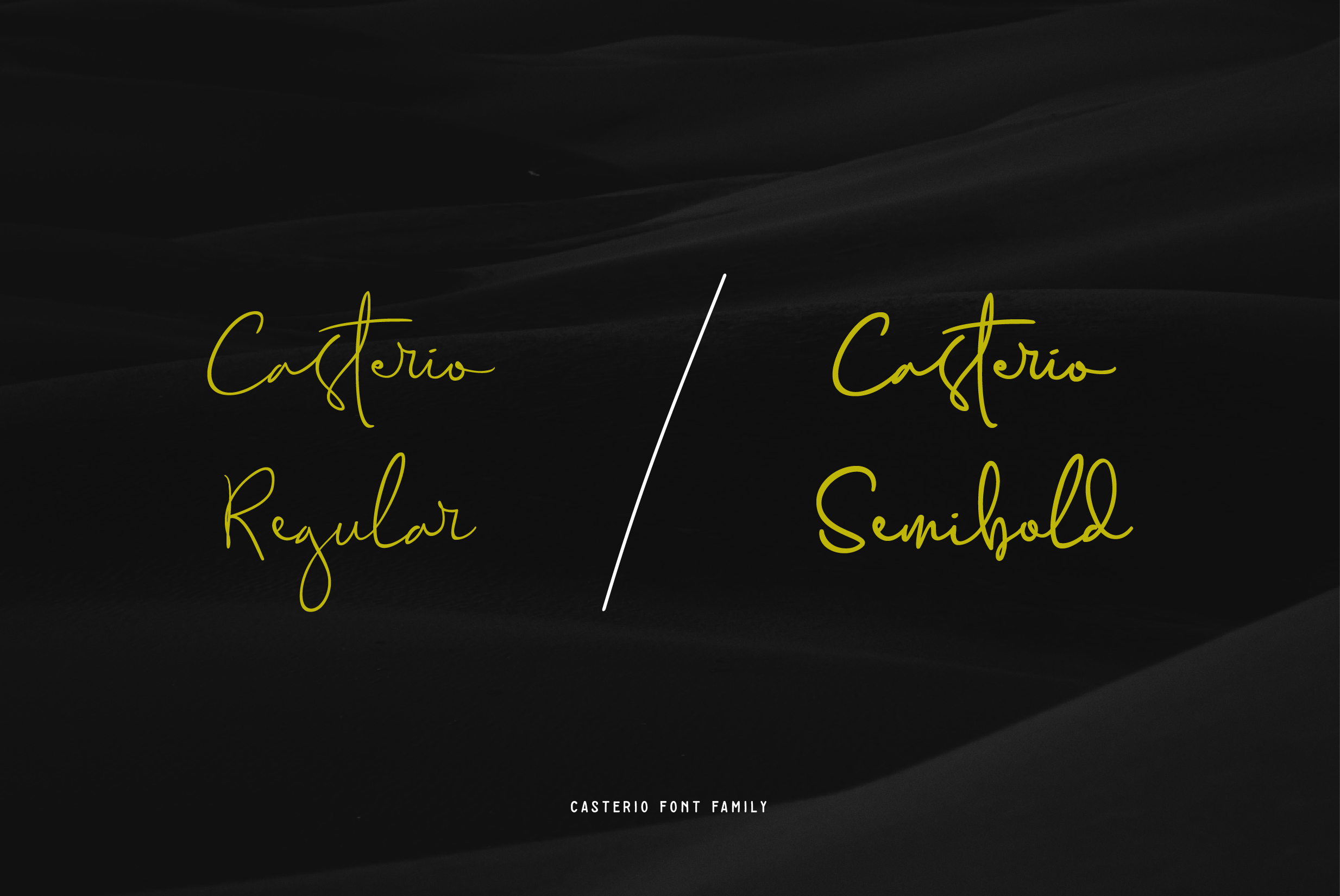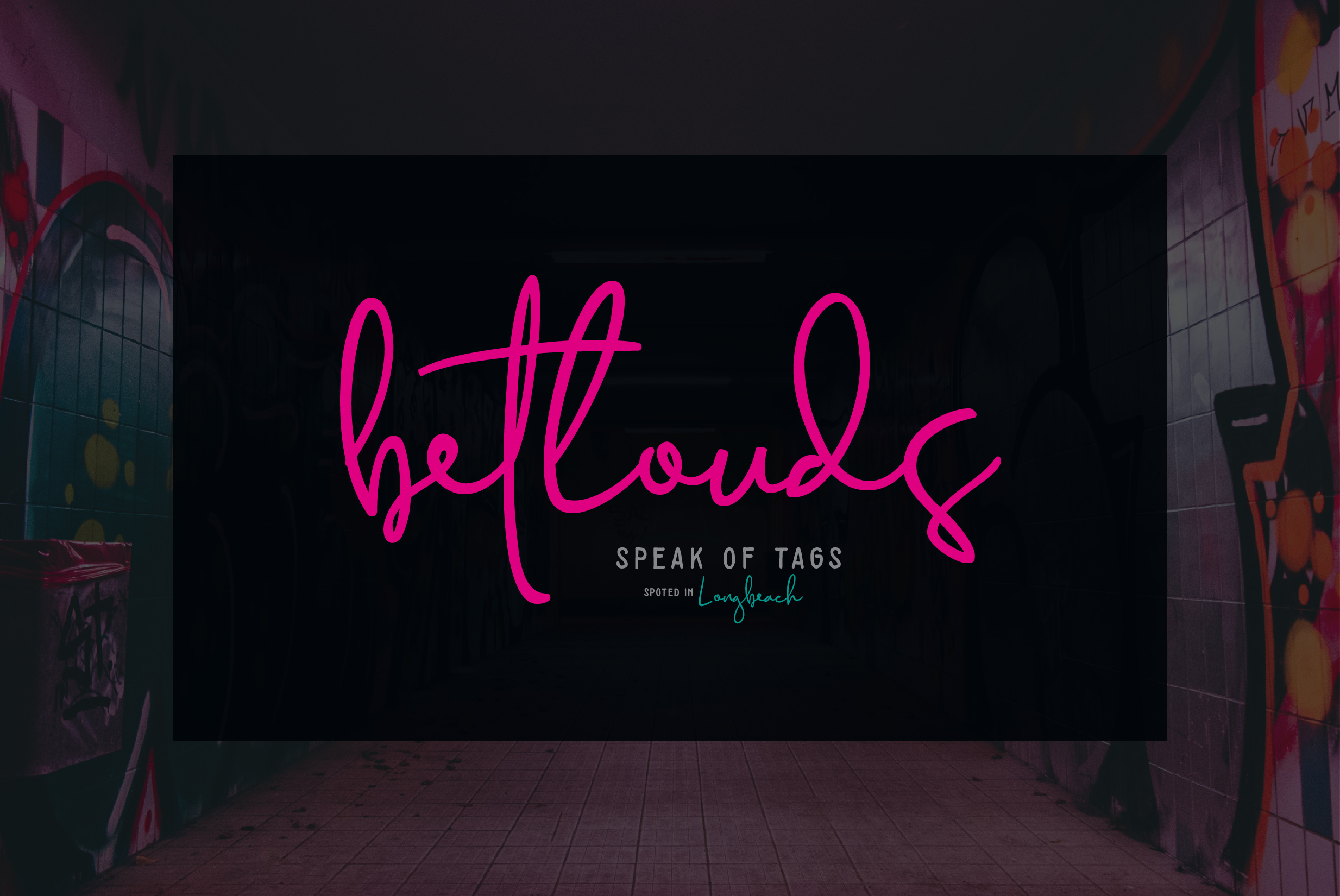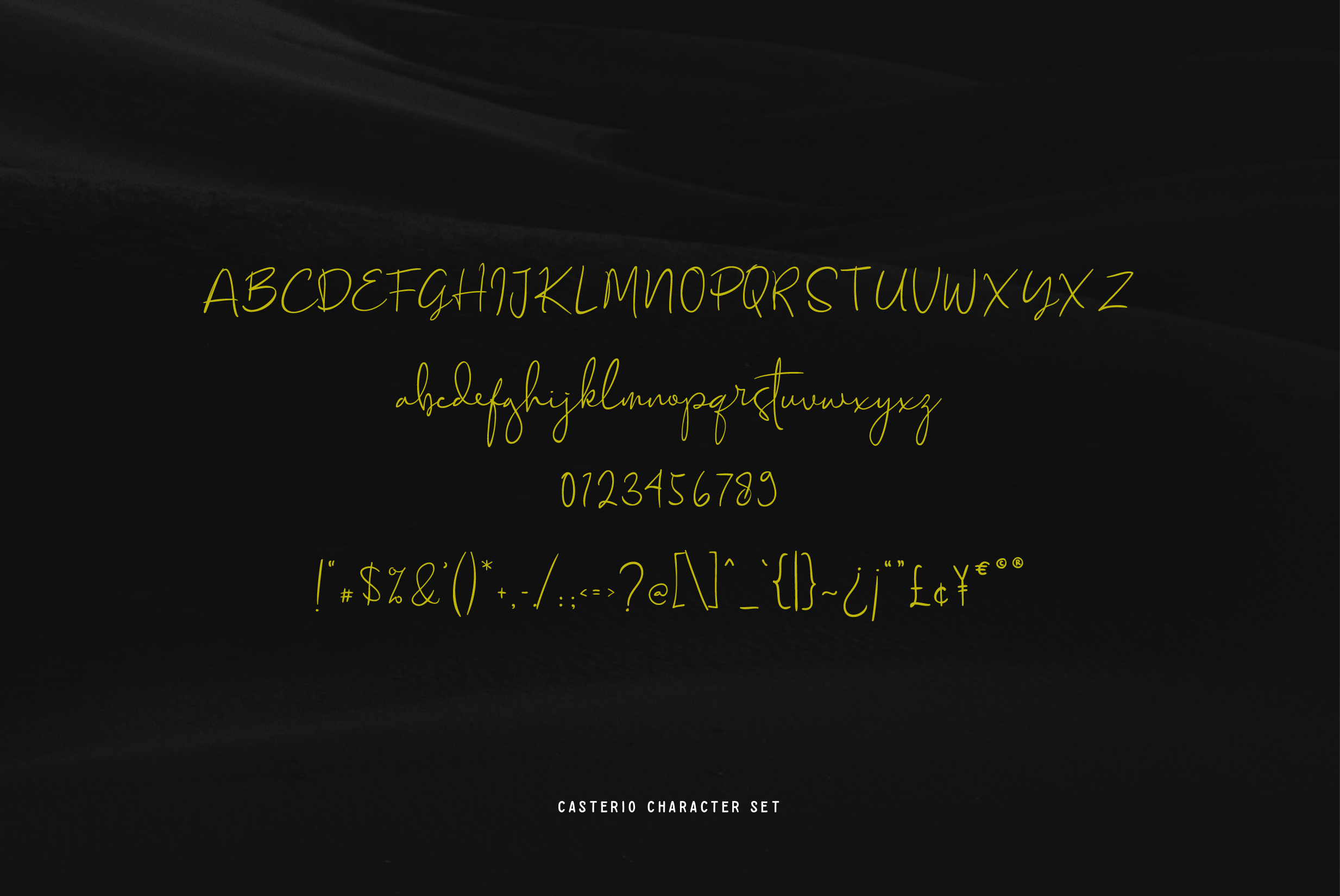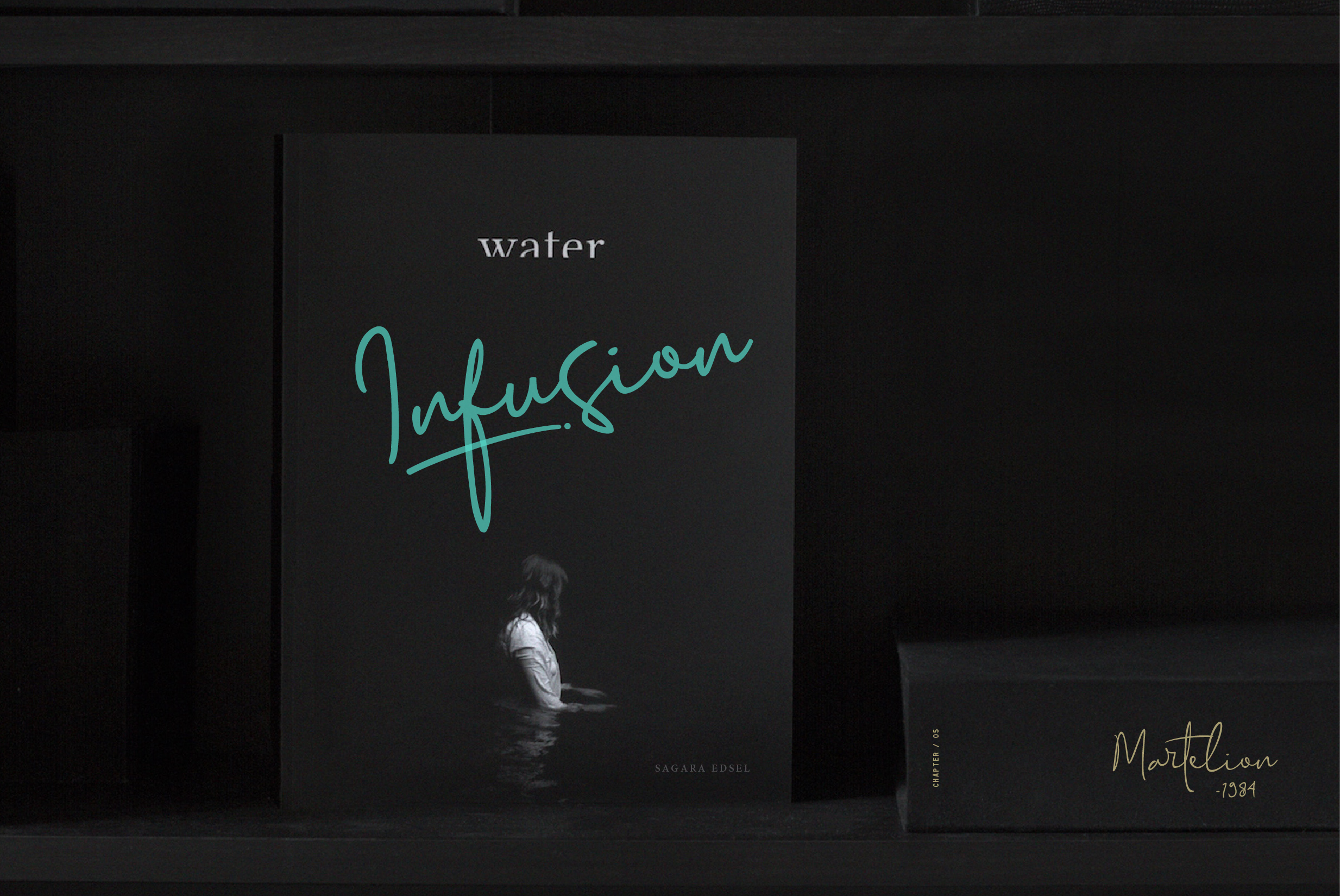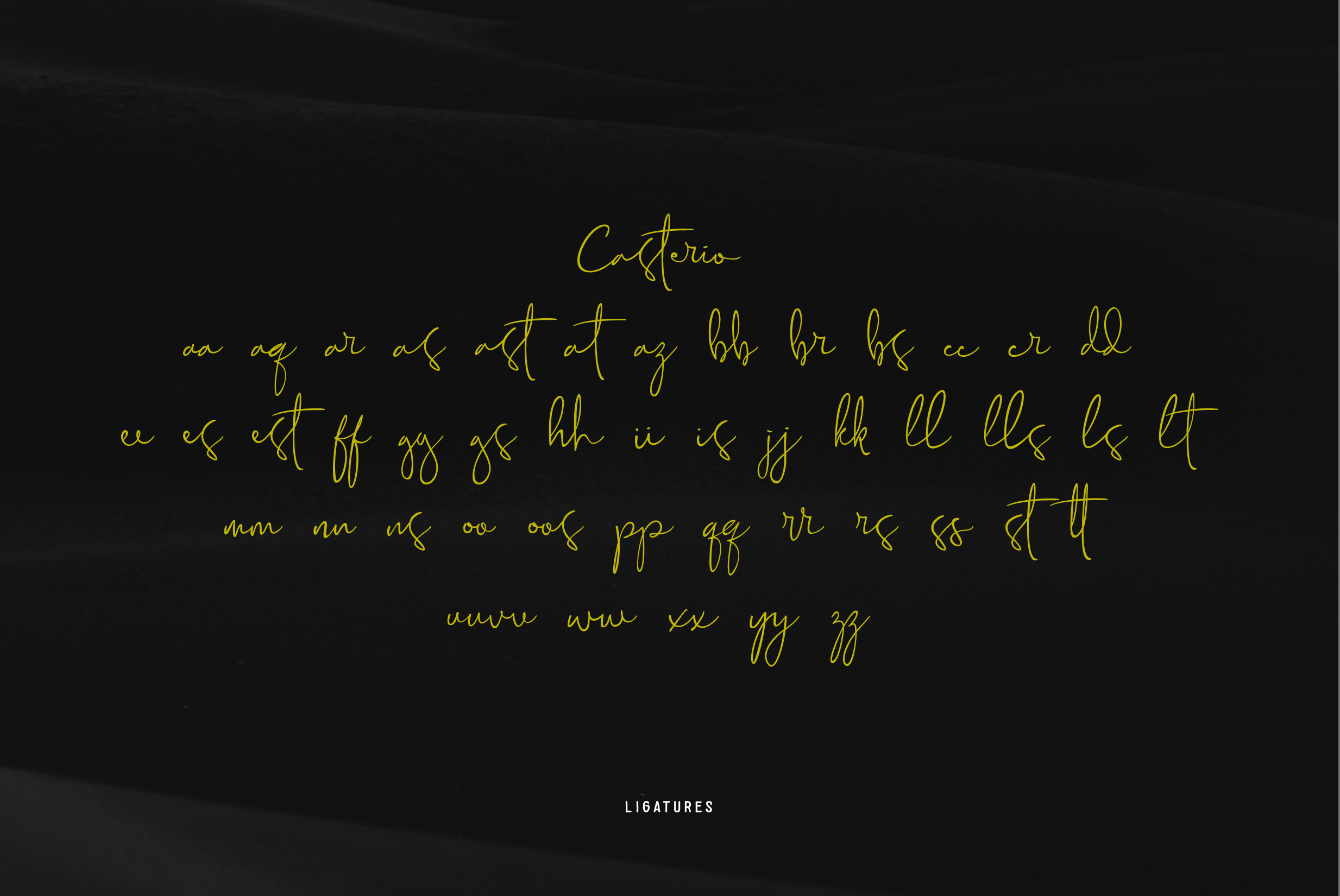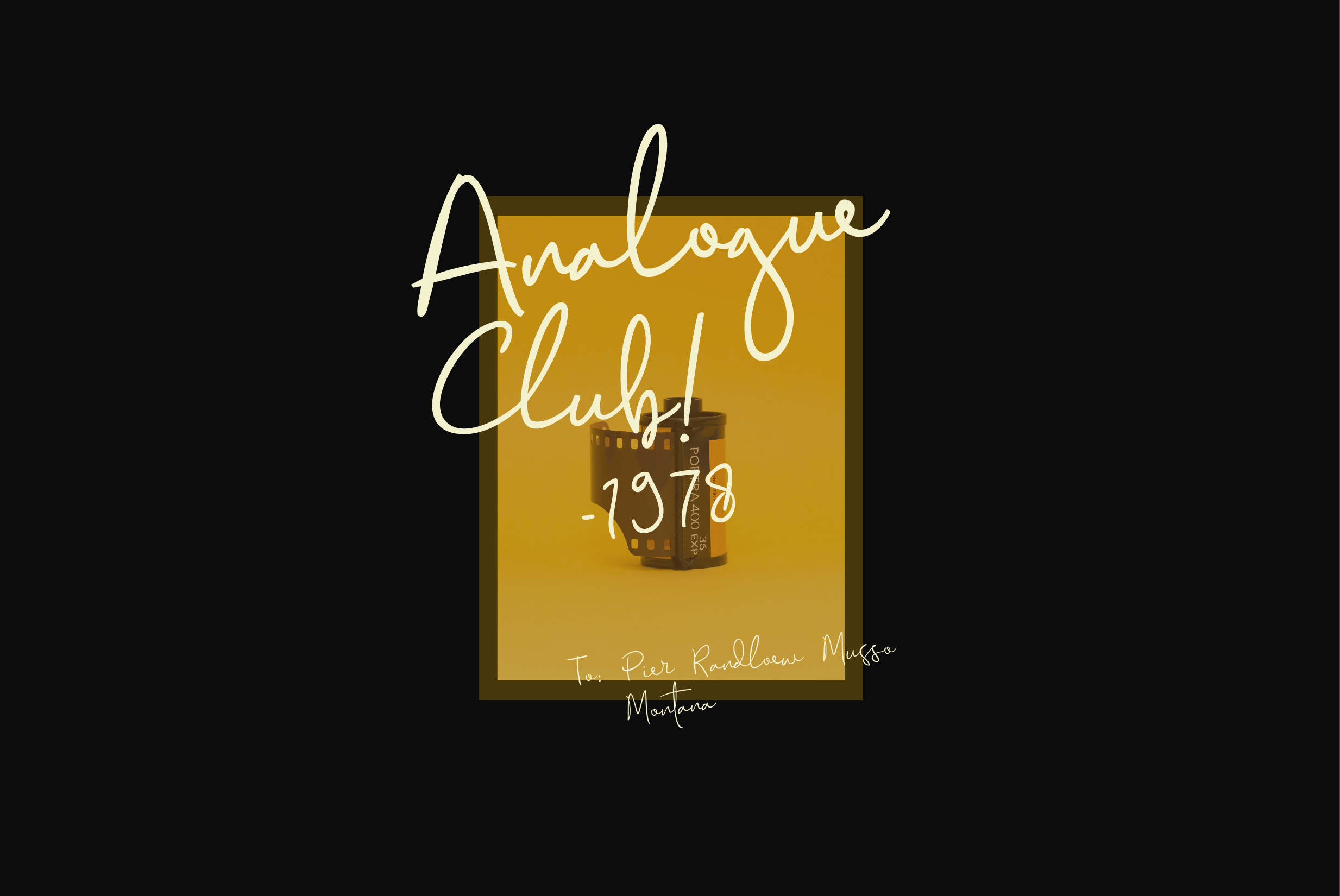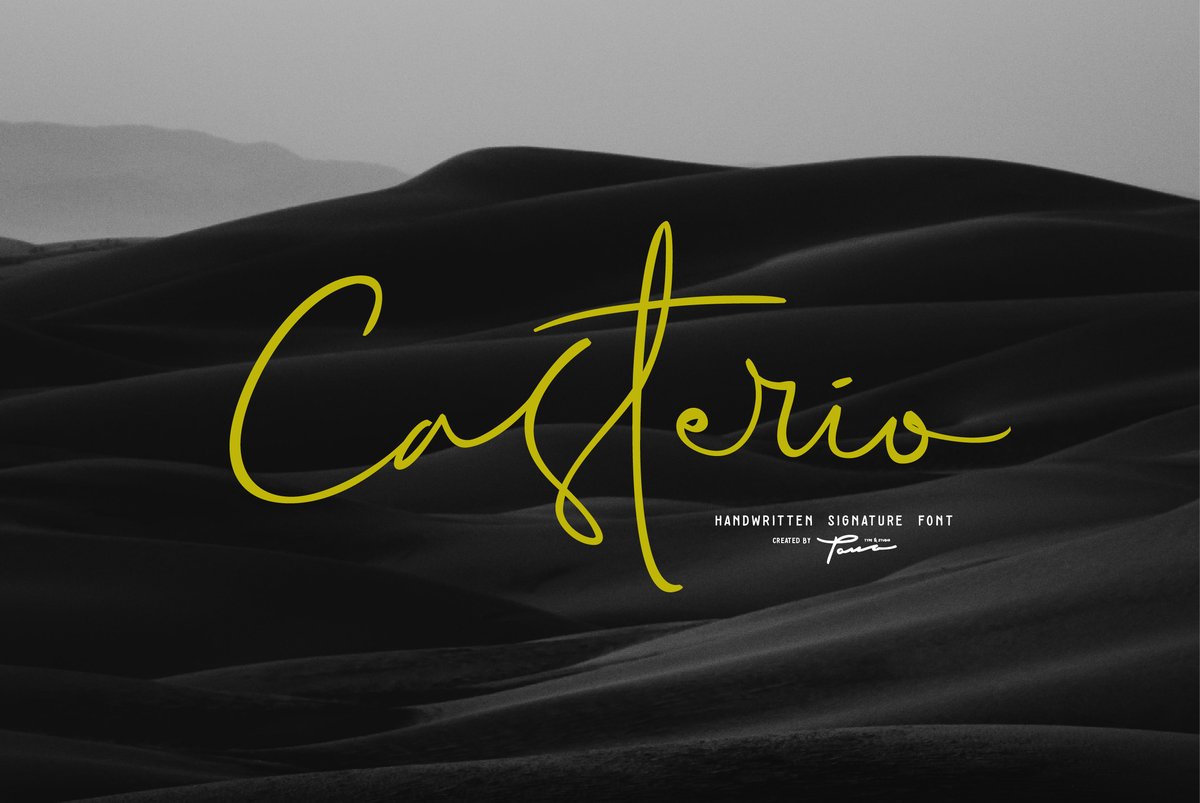
Discover the Carefree Charm of Casterio Font
As designers, we’ve all been there – staring at a blank canvas, trying to find the perfect font to bring our ideas to life. The search can be endless, but when you stumble upon a font that just feels right, it’s a moment of pure magic. For me, that moment came when I discovered Casterio Font, a gorgeous, thin signature font that exudes a carefree and relaxed vibe.
Created with a modern feel in mind, Casterio Font is perfect for designers who want to add a touch of elegance and sophistication to their projects. Whether you’re working on a branding campaign, a website, or a social media graphic, this font is sure to bring a sense of calm and serenity to your design. Its unique style and unparalleled charm make it a valuable addition to any designer’s toolkit, and I’m excited to share its secrets with you.
Casterio Font Key Features
- Unique Characteristics: The Casterio Font is known for its elegant, cursive design with subtle flair and fluid connections between letters.
- Font Weight and Style: The font comes in a variety of weights and styles, including Light, Regular, Bold, Italic, and Bold Italic.
- Scalability: The Casterio Font is designed to be highly scalable, making it suitable for use in a wide range of applications, from small text to large headings.
Casterio Font Review
First impressions are everything, and Casterio Font certainly caught my eye with its elegant, hand-drawn look. ✨ The font is perfect for adding a touch of sophistication to any project, whether it’s a logo, poster, or magazine spread. I particularly love the way the letterforms flow together, creating a sense of fluidity and movement.
One of the standout features of Casterio Font is its versatility. ✨ It’s suitable for both display and body text, making it an excellent choice for designers who want a single font to cover multiple use cases. Additionally, the font comes in a range of weights, from Light to Bold, giving designers ample options to experiment with different styles.
While Casterio Font is an excellent addition to any designer’s toolkit, there are a few limitations to consider:
- ⚠️ The font may not be ideal for very small text sizes, as the letterforms can become difficult to read.
- ⚠️ Casterio Font may not be the best choice for projects that require a lot of technical or scientific text, as the font’s aesthetic is more suited to creative and artistic applications.
In conclusion, Casterio Font is a beautiful and versatile font that can elevate any design project. While it may have some limitations, its strengths far outweigh its weaknesses. I highly recommend Casterio Font to any designer looking to add a touch of elegance and sophistication to their work.
Getting the Most Out of Casterio Font
To get the most out of Casterio Font, try the following tips:
– Use Casterio Font for headings and titles to add a touch of elegance.
– Pair Casterio Font with other elegant fonts for a cohesive look.
– Experiment with different font sizes and colors to create visual interest.
Casterio Font is perfect for:
– Luxury brand logos and packaging
– High-end business cards and presentations
Alternatives to Casterio Font for Designers
Open Sans is a modern sans-serif font that is highly legible and versatile. It is suitable for body text, headings, and titles. Open Sans is a great alternative to Casterio Font when you need a clean and simple font for digital products, such as websites, mobile apps, and software.
Comparison to Casterio Font: Open Sans is more modern and has a cleaner design, while Casterio Font has a more classic and elegant feel. Open Sans is also more widely used and supported across different platforms and devices.
What is the recommended font size for the Casterio Font?
The Casterio Font is designed to be highly legible at a wide range of font sizes. For body text, we recommend using font sizes between 12pt and 14pt for optimal readability. For headings and titles, you can use larger font sizes up to 48pt or more, depending on your design requirements.